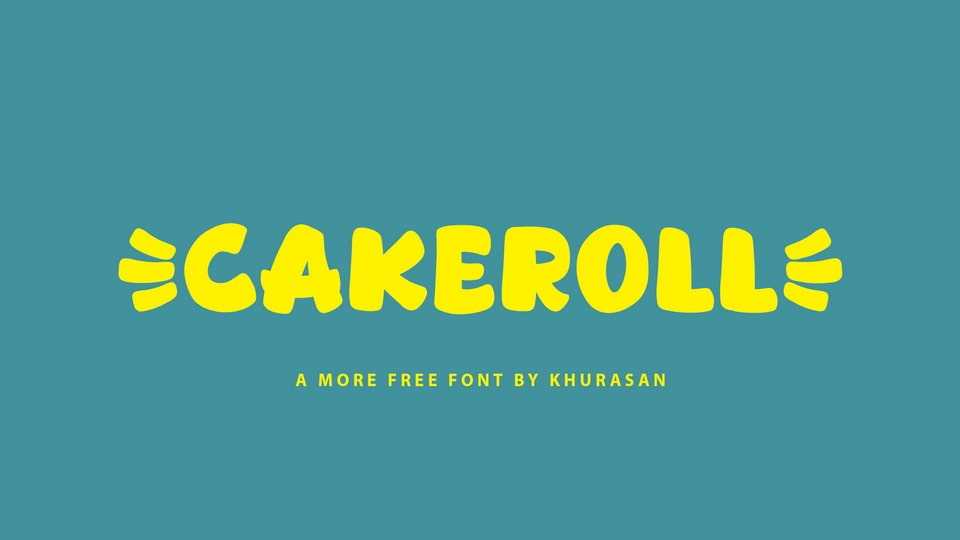
Download Cakeroll font, a cartoon typeface where boldness meets playfulness. Cakeroll font is a burst of energy with its thick, confident strokes and whimsical design, making it a perfect choice for projects that demand a bold and lively cartoon aesthetic.